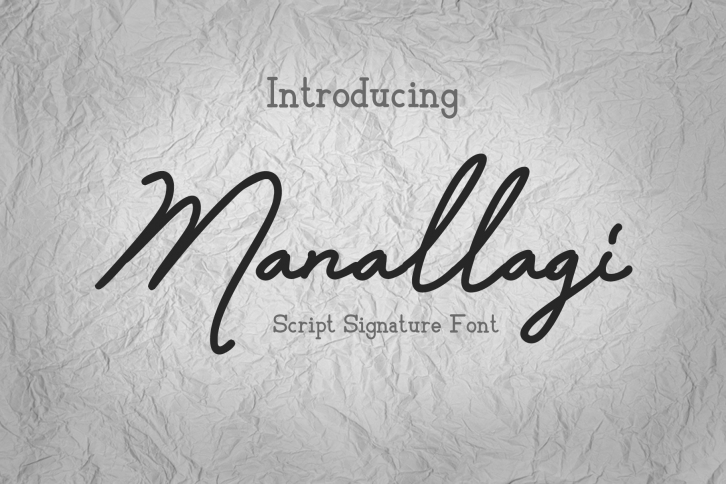
Meet my new font Manallagi
Manallagi Script signature - a new modern & fresh script with a handwritten and script style make this font looks elegant, natural, stylish and perfect for any awesome projects that need handwriting taste.
Manallagi would perfect for photography, watermark, social media posts, advertisements, logos & branding, invitation, product designs, label, stationery, wedding designs, product packaging, special events or anything that need handwriting taste.
Manallagi includes full set of lovely uppercase and lowercase letters, multilingual symbols, numerals and punctuation. This is so perfect for Vintage Design Style, Logo, Poster, etc